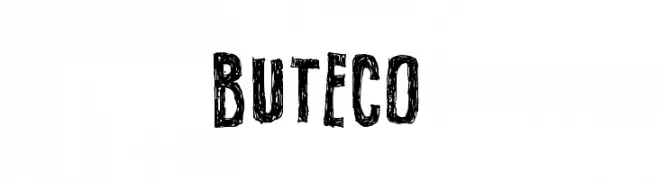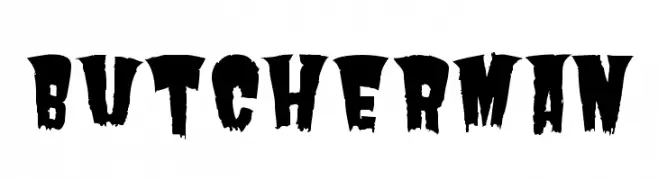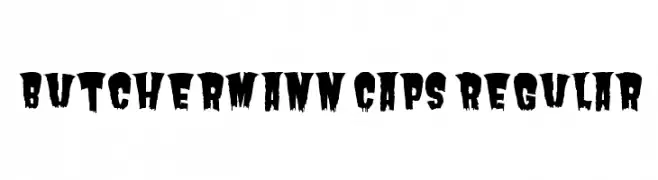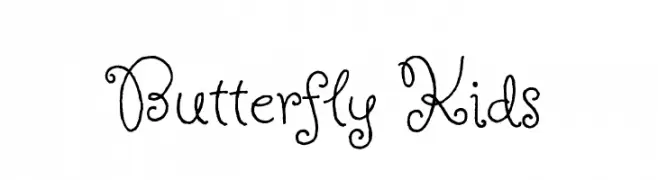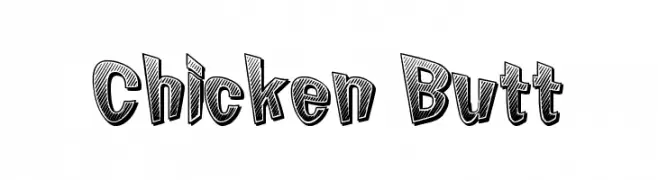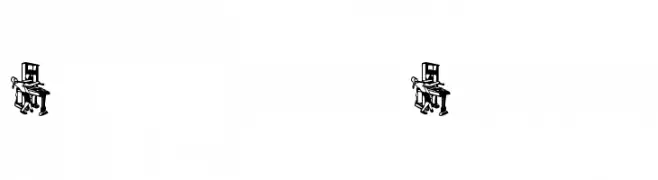
( Fonts by Vanessa Bays - bythebutterfly.com )
A playful, handwritten-style font with rounded edges and a casual feel.
( Fonts by www.fenotype.com )
A bold, geometric font with a futuristic and digital aesthetic.
( Fonts by Divide By Zero! - fonts.tom7.com )
A playful, hand-drawn font with quirky letterforms and smiley face characters.
( Fonts by Jacob Fisher - www.pizzadude.dk )
A bold, handwritten font with a playful and dynamic style.
( Fonts by Jacob Fisher - www.pizzadude.dk )
A bold, geometric font with a digital, futuristic style.
A pixelated, monospaced font with a digital, grid-like appearance.
( Fonts by Astigmatic One Eye Typographic Institute - Brian J. Bonislawsky - astigmatic.com )
A playful, organic font with bold, irregular shapes and fluid lines.
( Fonts by Jacob Fisher - www.pizzadude.dk )
A pixelated, blocky font with a retro 1980s digital style.
( Fonts by Divide By Zero! - fonts.tom7.com )
A playful, bold, and irregular font with a hand-drawn, whimsical style.
( Fonts by Jacob Fisher - www.pizzadude.dk )
A bold, geometric font with a modern, futuristic style.
( Fonts by Jacob Fisher - www.pizzadude.dk )
A bold, geometric font with a modern, digital aesthetic.
( Fonts by Jacob Fisher - www.pizzadude.dk )
A bold, hand-drawn font with a playful and chaotic style.
( Fonts by Jacob Fisher - www.pizzadude.dk )
A modern, rounded font with smooth, elongated characters and consistent stroke width.
( Fonts by Jacob Fisher - www.pizzadude.dk )
A dot matrix style font with a retro digital display appearance.
A bold, pixelated font inspired by classic video game graphics.
( Fonts by Jacob Fisher - www.pizzadude.dk )
A playful, bold font with rounded, bubbly characters perfect for fun and creative projects.
( Fonts by Jacob Fisher - www.pizzadude.dk )
A bold, playful font with a hand-drawn, energetic style.
( Fonts by Jacob Fisher - www.pizzadude.dk )
A bold, geometric outline font with a modern, condensed style.
( Fonts by Jacob Fisher - www.pizzadude.dk )
A bold, geometric font with a digital, pixel-like design.
( Fonts by Nick Curtis - www.nicksfonts.com )
A bold, playful font with rounded, chunky characters and a whimsical style.
( Fonts by Nick Curtis - www.nicksfonts.com )
A bold, geometric, and playful outlined font.
( Fonts by Jacob Fisher - www.pizzadude.dk )